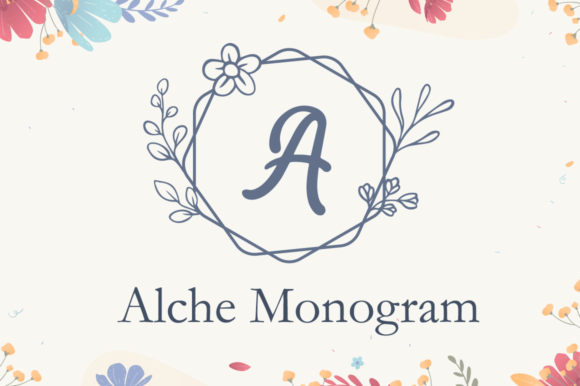
The Alche Monogram Font: A Lovely Addition to Your Design Arsenal
I’ll never forget the time I was working on a wedding invitation project, and my client asked me to create a custom monogram for the bride and groom. I spent hours scouring the internet for the perfect font, but nothing seemed quite right. That was until I stumbled upon the Alche Monogram Font. This lovely and dainty decorative font has since become a staple in my design toolkit, and I’m excited to share its charm with you.
An Honest Review of Alche Monogram Font
So, what makes Alche Monogram Font so special? Let’s dive into the good stuff!
• Romantic and elegant: Alche Monogram Font exudes a sense of sophistication and whimsy, making it perfect for wedding invitations, love letters, and other special occasions.
• Highly versatile: This font can be used for a variety of design projects, from paper crafts to digital art.
• 🎉 Easy to read: Despite its decorative nature, Alche Monogram Font remains clear and legible, even at smaller sizes.
Of course, no font is perfect, and Alche Monogram Font has a few minor quirks:
• 🤔 Limited character set: As a monogram font, Alche Monogram Font is designed primarily for single letters or simple combinations. This might limit its use for longer texts.
The Story Behind Alche Monogram Font
While the origins of Alche Monogram Font are shrouded in mystery, it’s clear that the designer was inspired by the romance and elegance of traditional monograms. The font’s creator likely drew from a range of historical and cultural influences to craft a unique and captivating design.
What is Alche Monogram Font best used for? Alche Monogram Font is perfect for wedding invitations, love letters, and other special occasions where a touch of romance and elegance is desired.
Is Alche Monogram Font suitable for body text? No, Alche Monogram Font is best used for short texts, such as monograms, titles, or headings, due to its decorative nature and limited character set.
Does Alche Monogram Font support OpenType features? Yes, Alche Monogram Font supports OpenType features, including glyphs and stylistic alternates, which can be accessed in design programs that support OpenType.